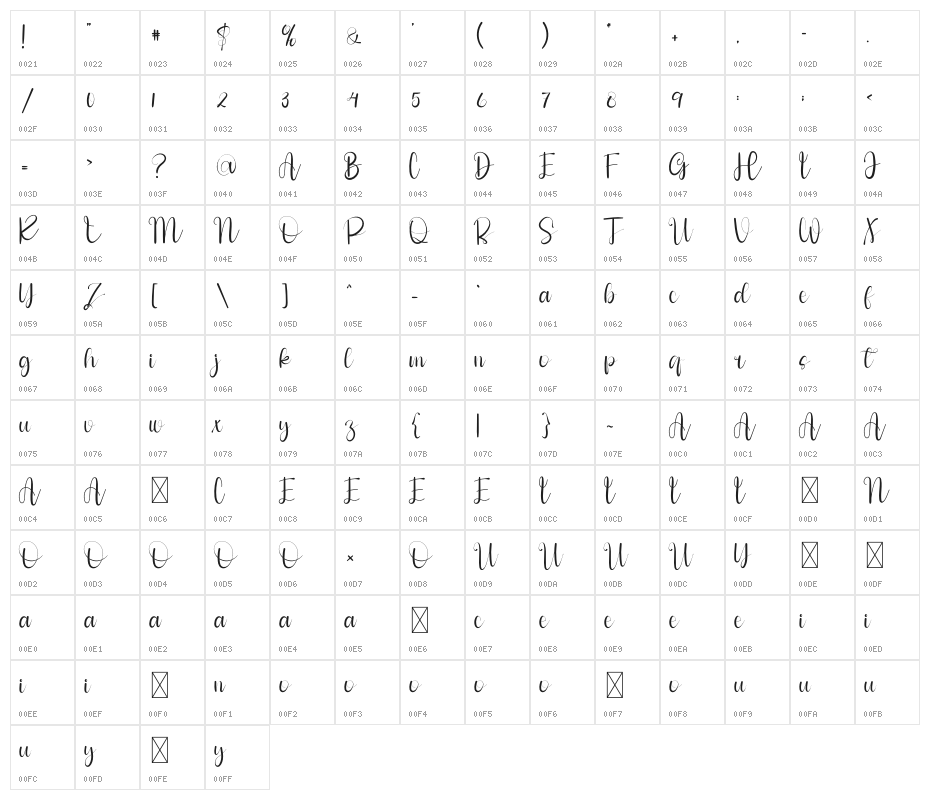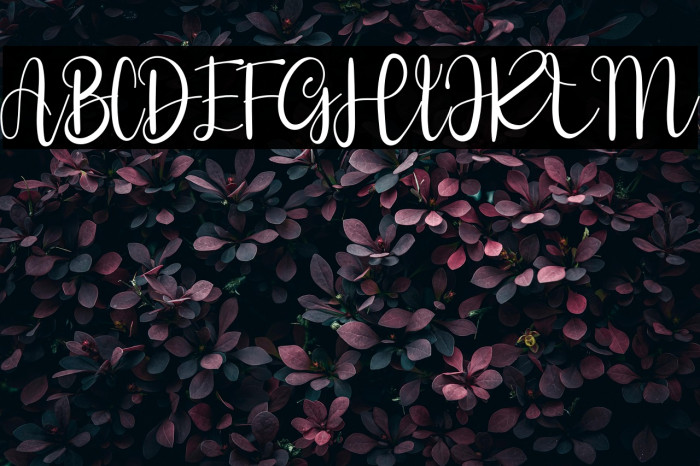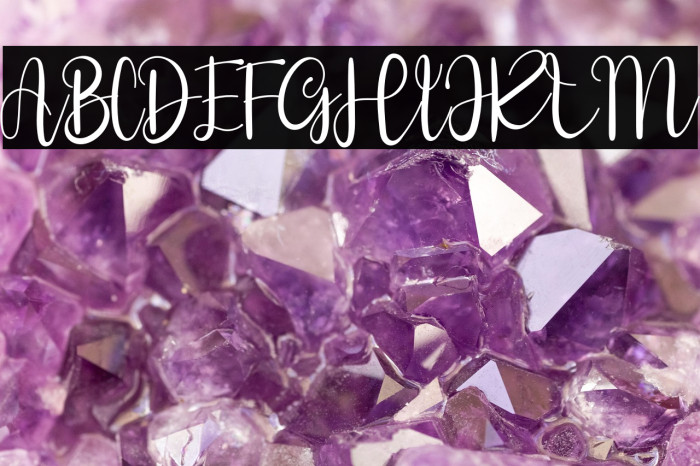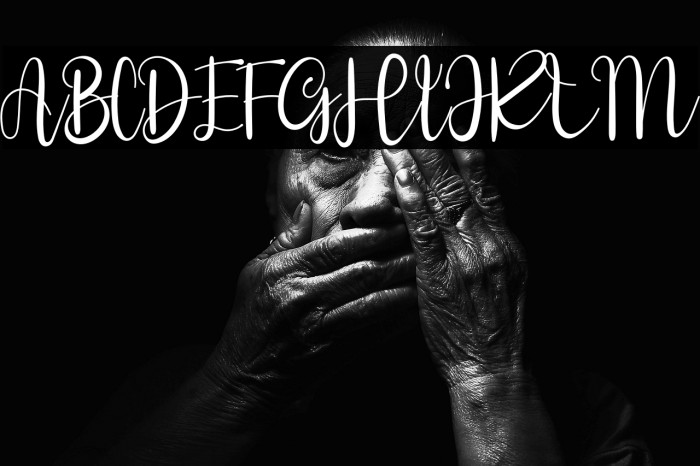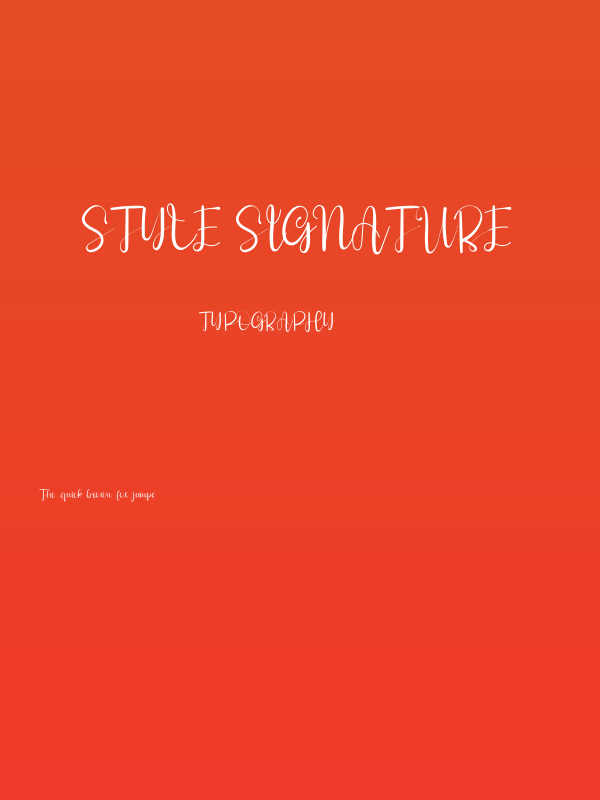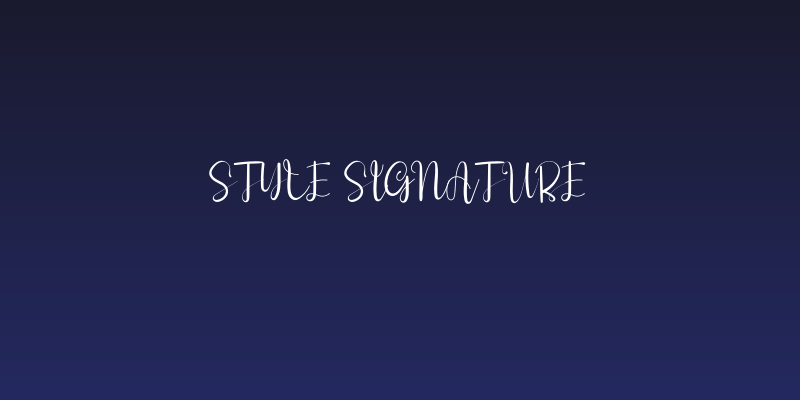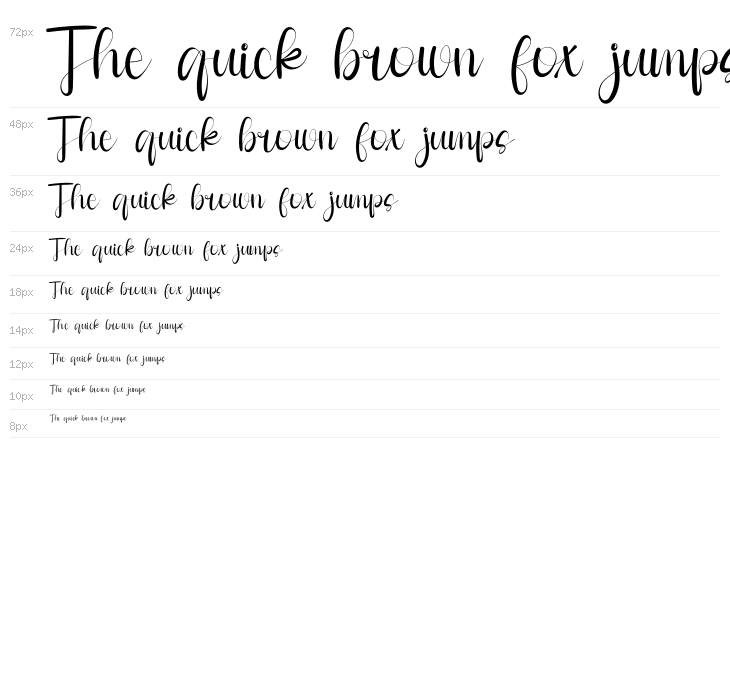
Style Signature Font
Style Signature Description
This font features an elegant and flowing script style, characterized by its smooth, cursive strokes and graceful loops. The uppercase letters are bold and prominent, with a distinct flair that adds a touch of sophistication. The lowercase letters maintain a consistent flow, enhancing readability while preserving the decorative nature of the design. Numbers and special characters are crafted with the same attention to detail, ensuring a cohesive look across all elements. The font's overall appearance is both stylish and versatile, making it suitable for a variety of creative projects.
| Use Case | Logos, Invitations, Headlines |
| Proposed Projects | Ideal for wedding invitations, branding, greeting cards, and elegant signage. |